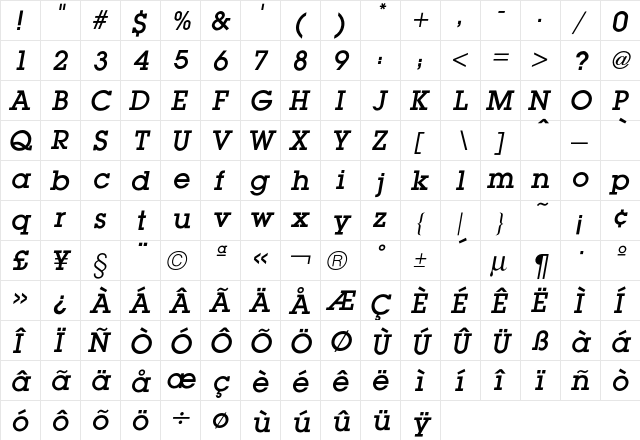
Lubalin MediumOblique
Design Context for Lubalin Typeface
Lubalin is a composed and adaptable typeface that performs quietly and consistently across a wide range of design contexts. Its italic angle brings a sense of urgency and motion to the letterforms.
Pro Tip: Use Lubalin for emphasis, pull quotes, and subheadings where its slanted energy can add rhythm to the layout.